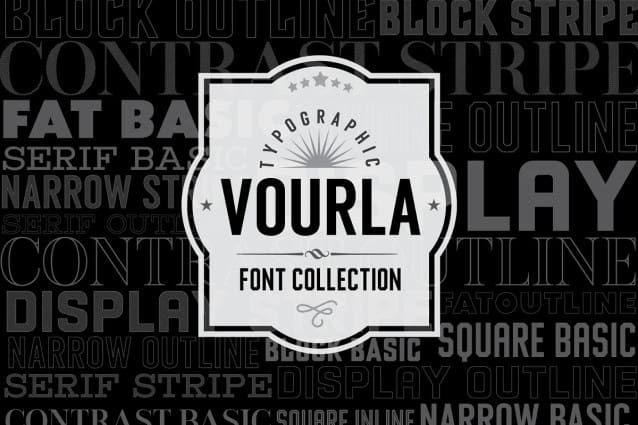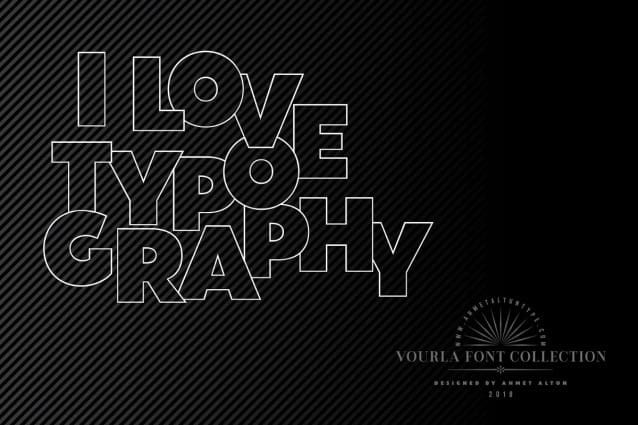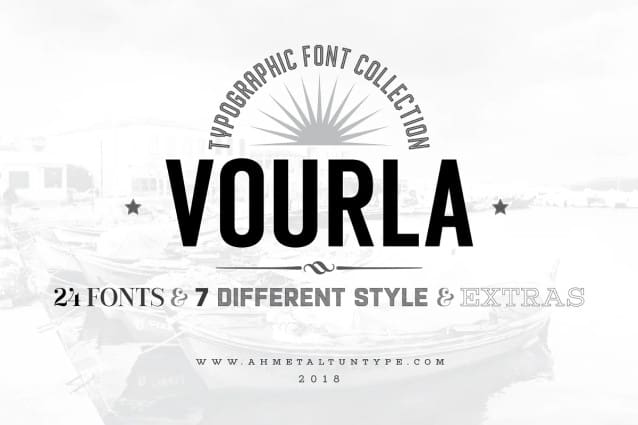
Vourla Font Family
Vourla Font Family – VourlaFont Collection consists of seven popular styles which are different from each other but get in harmony when they used together. Additionally, it includes all-purpose extras and some fonts’ outline and stripe forms. The ornaments can be used easily by pressing the letters with their small or capital forms and numbers on the keyboard.
Vourla Font Collection is a unique and perfect choice to create vintage style or typographic posters and for your several graphic design works.
The name “Vourla” is my lovely town Urla’s old town name.